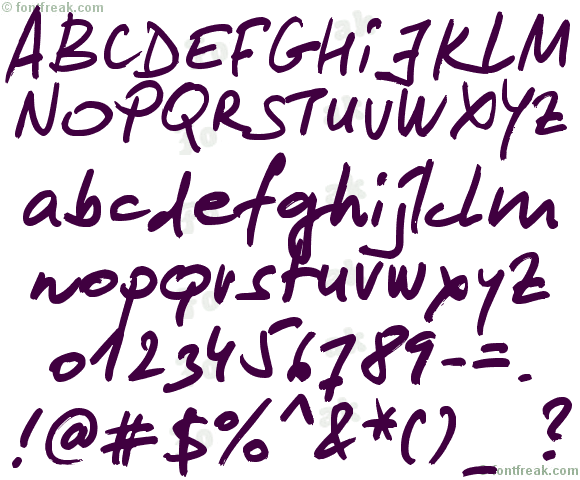
Lipsum
The Lipsum font by Levi Szekeres is a captivating handwritten typeface that brings a personal touch to various design projects. With its unique blend of fluid strokes and artistic flair, this font falls into the script category, characterized by its elegant, flowing lines that mimic natural handwriting. The strokes exhibit a moderate weight, offering a balanced contrast that enhances readability while retaining a charming, organic feel. The letterforms are well-spaced, ensuring clarity without sacrificing the warmth typical of a handwritten style.
Lipsum is particularly well-suited for a diverse range of applications. It shines in wedding invitations, where its graceful curves can evoke romance and intimacy. Additionally, it works beautifully for restaurant menus, giving a casual yet sophisticated vibe that can entice diners. Graphic designers can leverage the Lipsum font for branding materials, such as logos and packaging, to create a memorable identity. Content creators will find it ideal for social media graphics and blog headers, where an inviting aesthetic can draw in audiences. Furthermore, it can enhance the visual appeal of gift cards and personal stationery, making any communication feel special.
In conclusion, the Lipsum font stands out due to its harmonious blend of elegance and approachability. Its handwritten style adds a unique personality to any design, making it a valuable addition to any designer's toolkit. With the Lipsum font free download available, you can easily incorporate this charming typeface into your next creative endeavor.